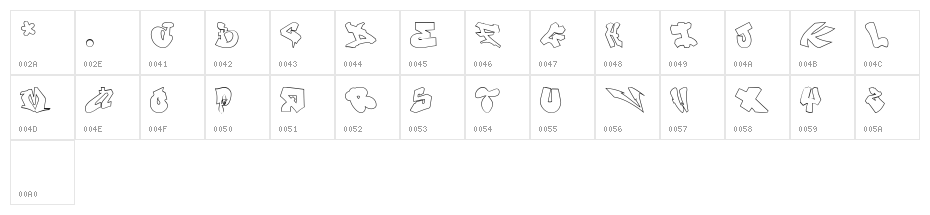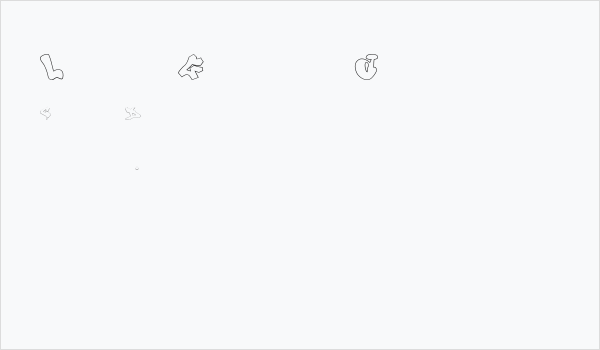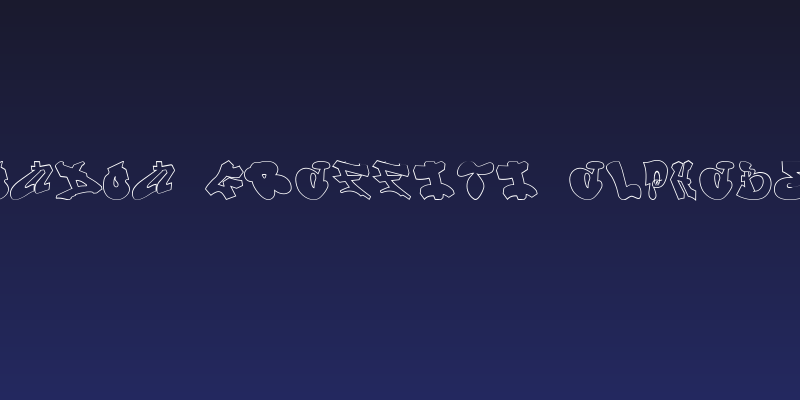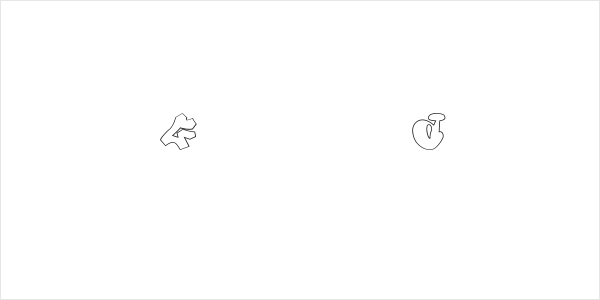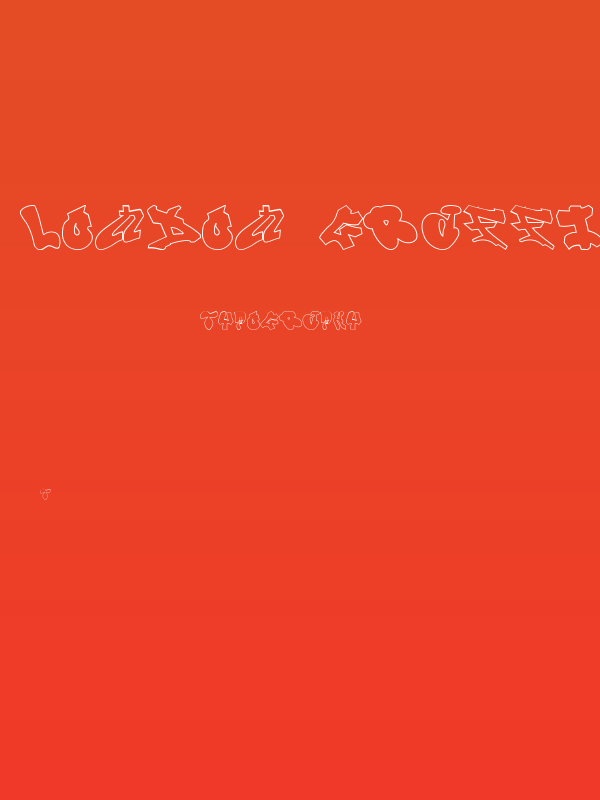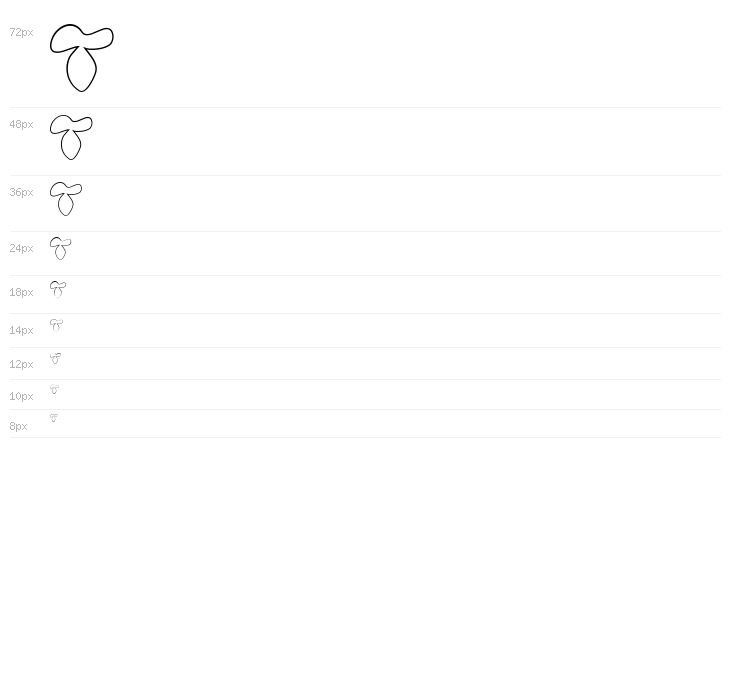
London Graffiti Alphabet Font
London Graffiti Alphabet Description
This font embodies the edgy and dynamic style of graffiti art, characterized by bold, angular shapes and a sense of movement. Each letter is uniquely crafted with exaggerated forms and sharp edges, capturing the rebellious spirit of street art. The font's design is highly decorative, with a playful yet aggressive aesthetic that makes it stand out. The uppercase letters are particularly striking, with a mix of curves and points that create a sense of energy and motion. This font is perfect for projects that aim to convey a sense of urban culture and creativity.
| Overall Style | Urban, Edgy, Artistic |
| Use Case | Logos, Posters, Album Covers |
| Proposed Projects | Ideal for street art projects, urban-themed posters, music album covers, and edgy branding. |